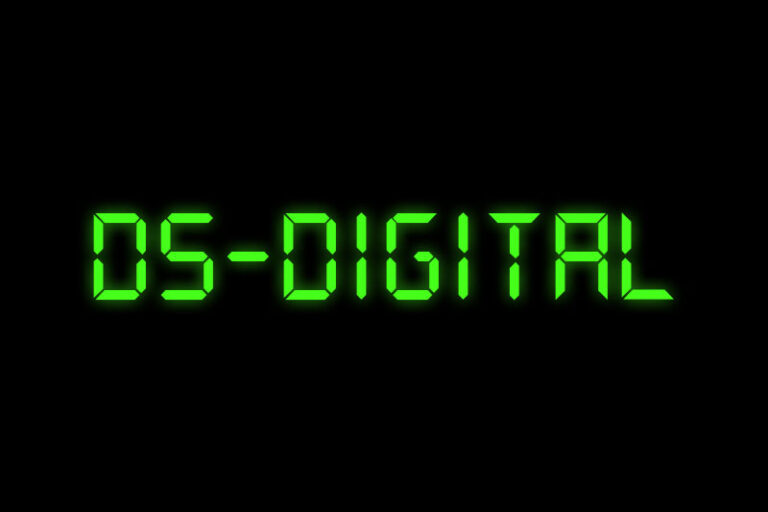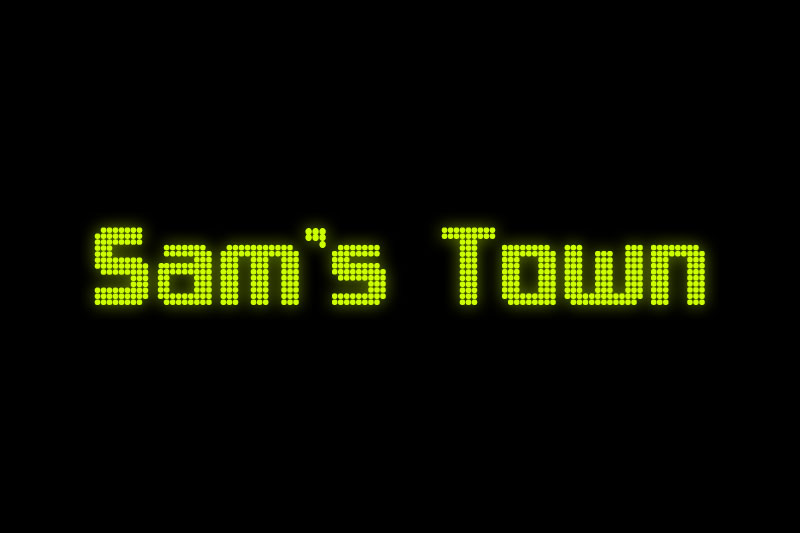
Digital Clock Font Name
Digital Clock Font Name. It’s inexpensive, easy to tell the time with,. Python digital clock program using tkinter gui.
Orbitron isn't a monospaced font though, so if you use it for a clock, then the numbers will jump over the place as they change, because the 1 is thinner than the 0, for. Click to find the best 24 free fonts in the clock style. Free for commercial use high quality images.
Lcd stands for liquid crystal display, the information display technology used in products such as digital watches and clocks. Mainwindow.xaml < window x:class = digital_clock.mainwindow Luciana is a monospaced font that offers a slightly different and lovely take on modern, futuristic typeface design.
A Digital Clock Is A Type Of Clock That Displays The Time Digitally (I.e.
Cela signifie que votre localisation peut être précise à plusieurs mètres près. This font is free for. Orbitron isn't a monospaced font though, so if you use it for a clock, then the numbers will jump over the place as they change, because the 1 is thinner than the 0, for.
An appropriate choice when a futuristic, high. That digital look happens to be aesthetically pleasing, too. Just google digital clock fonts, download one and change the cell font to whichever one you've downloaded.